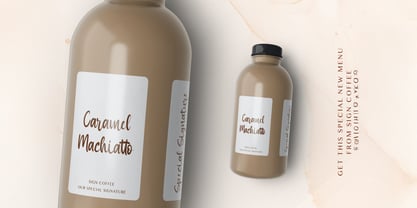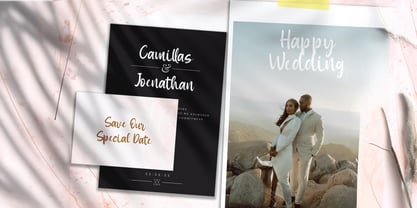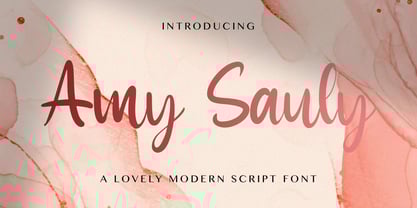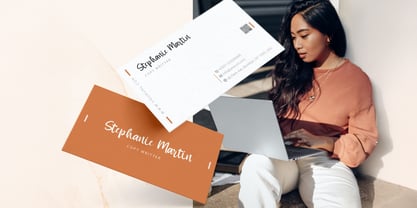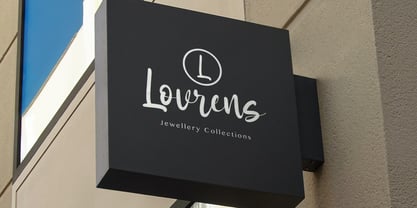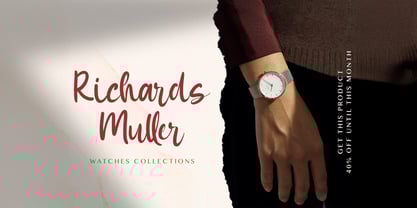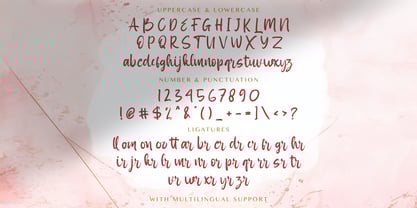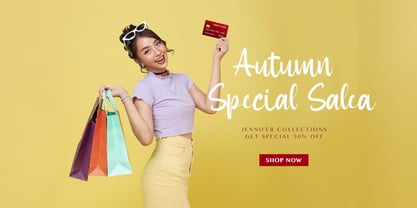
The Amy Sauly Font Family was designed by Virgiawan Listanto and published by Stringlabs Creative Studio. Amy Sauly contains 1 styles. More about this family
Amy Sauly is a charming handwritten font that blends simplicity with graceful flow. With its delicate curves and natural strokes, this font brings a personal and heartfelt touch to your designs perfect for adding warmth and authenticity.